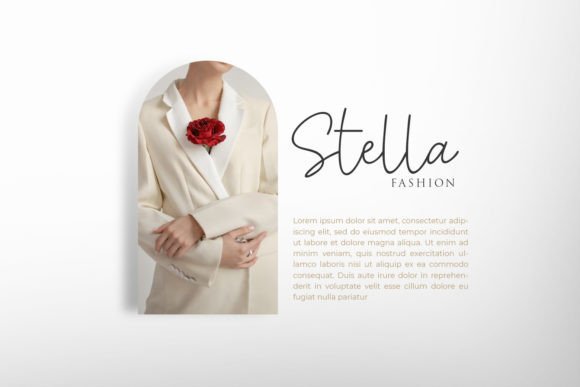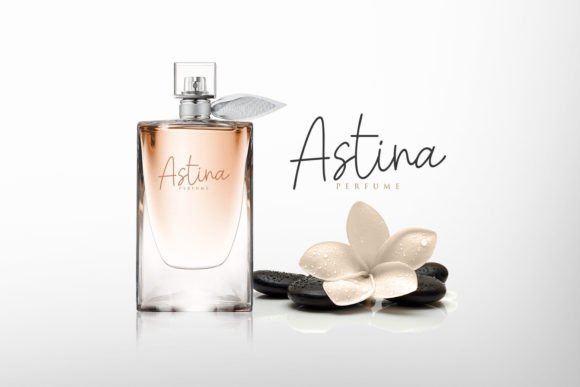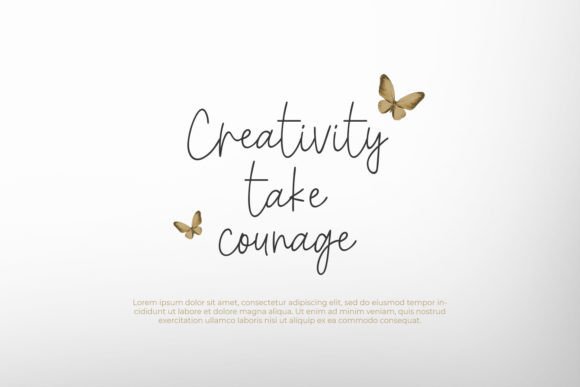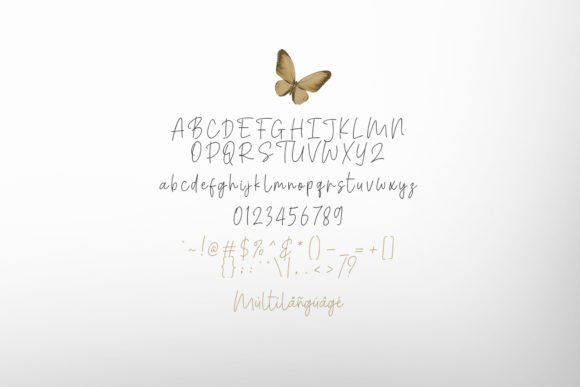
Introducing the Atrace Font: Elevate Your Designs with a Fresh and Unique Script
Are you tired of using the same old fonts for your design projects? Look no further! We’re excited to introduce the Atrace font, a fresh and unique script that adds a beautiful touch to any design. This stunning font is perfect for designers and crafters looking to create extraordinary designs that stand out from the crowd.
What Makes the Atrace Font Special?
The Atrace font boasts a distinctive script style that exudes elegance and sophistication. Its unique touch makes it an ideal choice for a wide range of design projects, from posters and logos to magazines, book covers, and banners. Whether you’re working on a personal project or a client’s commission, this font is sure to impress.
One of the best things about the Atrace font is its versatility. It can easily be adapted to a very large set of projects, making it a valuable addition to your design toolkit. Here are just a few ideas to get you started:
- Posters: Create eye-catching posters for events, promotions, or advertising campaigns.
- Logos: Use the Atrace font to craft a unique and memorable logo for your brand or business.
- Magazines: Add a touch of elegance to your magazine layouts with this beautiful script font.
- Book Covers: Make your book covers stand out with a stunning font that’s sure to grab attention.
- Banners: Create stunning banners for websites, social media, or advertising campaigns.
Why Choose the Atrace Font?
So, what sets the Atrace font apart from other fonts on the market? Here are just a few reasons why designers and crafters love this font:
- Unique Style: The Atrace font boasts a fresh and unique script style that’s sure to make your designs stand out.
- Elegant Touch: This font adds a beautiful touch to any design, making it perfect for projects that require a touch of sophistication.
- Versatility: The Atrace font can be used for a wide range of design projects, from print to digital media.
Tips for Using the Atrace Font
Here are a few tips for getting the most out of the Atrace font:
- Experiment with Different Sizes: Try using the Atrace font in different sizes to create visual interest and hierarchy in your designs.
- Pair it with Other Fonts: Combine the Atrace font with other fonts to create a unique and eye-catching typography combination.
- Use it for Headlines and Titles: The Atrace font is perfect for headlines and titles, where its elegant touch can really shine.
In conclusion, the Atrace font is a fresh and unique script that’s perfect for designers and crafters looking to elevate their designs. With its elegant touch, versatility, and ease of use, this font is sure to become a favorite in your design toolkit. So why wait? Get your hands on the Atrace font today and start creating beautiful designs that stand out from the crowd!